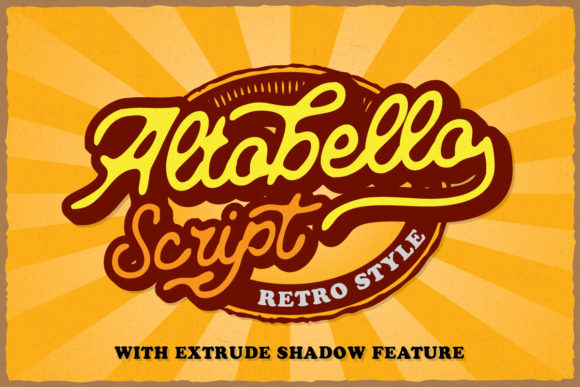
The Altobello Font: A Retro Script with Bold Personality
I’ll never forget the design project that led me to discover the Altobello Script font. I was working on a branding project for a vintage-inspired boutique, and I was struggling to find the perfect font to capture the essence of the brand. The client wanted something bold, yet elegant, with a touch of nostalgia. After hours of searching, I stumbled upon Altobello Script, and it was love at first sight! 💕
The Altobello Script font is a retro script with a bold shadow feature that instantly elevates any design project with its authentic charm. Its bold swashes and elegant lines make it perfect for designers, crafters, and creative hobbyists looking to add a touch of sophistication to their work.
- ✨ Bold and eye-catching: The Altobello Script font is perfect for making a statement in any design project.
- ✅ Elegant swashes: The font’s swashes add a touch of sophistication and elegance to any design.
- ✅ Highly versatile: Altobello Script can be used for a variety of design projects, from branding and packaging to invitations and social media graphics.
While I adore the Altobello Script font, there are a few things to keep in mind:
- ⚠️ Limited legibility at small sizes: Like many script fonts, Altobello Script can be difficult to read at small sizes. It’s best used at larger sizes where its bold personality can shine.
- 🤔 Limited use for body text: Due to its bold and decorative nature, Altobello Script is best used for headlines and titles rather than body text.
- Experiment with the font’s OpenType features, such as swashes and stylistic alternates, to add more personality to your design.
- Experiment with the font’s glyphs and stylistic alternates to add more personality to your design.
The Designer Inspiration Behind Altobello Script
The Altobello Script font was designed with the goal of creating a bold and elegant script font that captures the essence of vintage typography. The designer drew inspiration from classic scripts of the past, combined with modern typography techniques to create a unique and highly versatile font.
Q: What is the Altobello Script font best used for?
A: The Altobello Script font is best used for branding and packaging projects, invitations, and social media graphics where a bold and elegant personality is desired.
Q: Can I use Altobello Script for body text?
A: While Altobello Script can be used for body text, it’s not recommended due to its bold and decorative nature. It’s best used for headlines and titles.